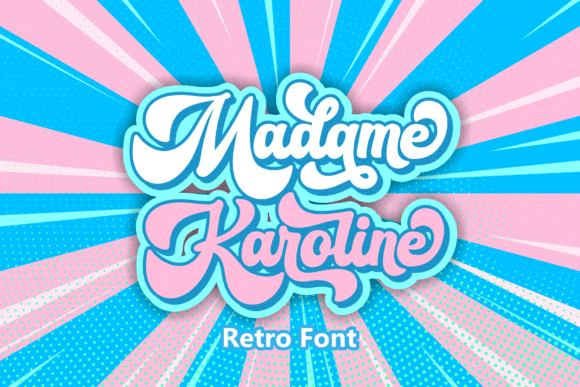
Introducing Madame Karoline Font, a cinematic masterpiece that will transport your creative visions to the silver screen. Inspired by the golden age of Hollywood, this retro-styled script font is a true work of art, meticulously crafted to add an aura of glamour and sophistication to your designs.
Step into the world of Madame Karoline, where retro charm meets modern elegance. Each character dances across the page with a graceful flourish, reminiscent of a bygone era of cinema. Its sweeping curves and elegant serifs evoke a sense of nostalgia, while its contemporary touches ensure it remains timeless and relevant.
With Madame Karoline, you have the power to craft designs that command attention and leave a lasting impression. Its versatility knows no bounds, making it the perfect choice for logos, posters, headlines, and any project where you seek a touch of cinematic flair. Whether you're designing for the fashion industry, creating eye-catching marketing materials, or simply adding a touch of vintage charm to your personal projects, Madame Karoline is your perfect companion.
Experience the allure of old Hollywood with Madame Karoline. Its timeless beauty and cinematic flair will elevate your designs to new heights, capturing the hearts of audiences everywhere. Embrace the nostalgia and let your creativity shine through.